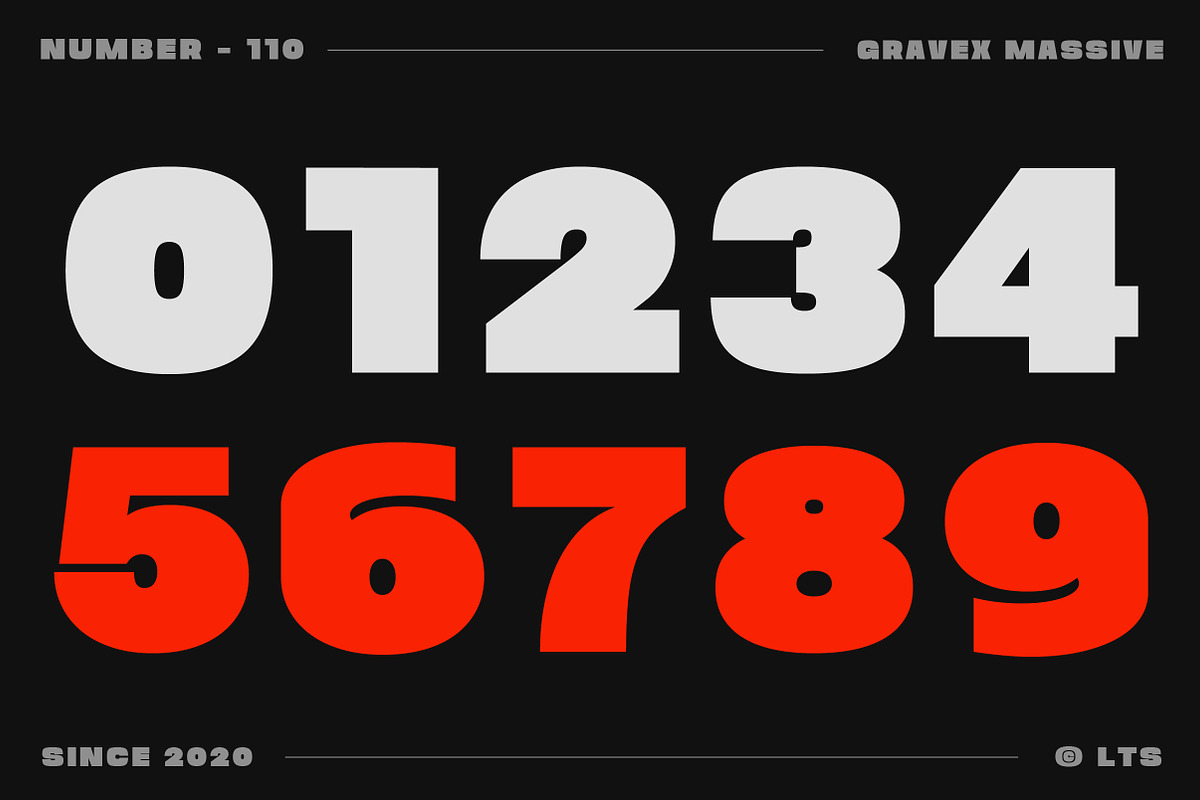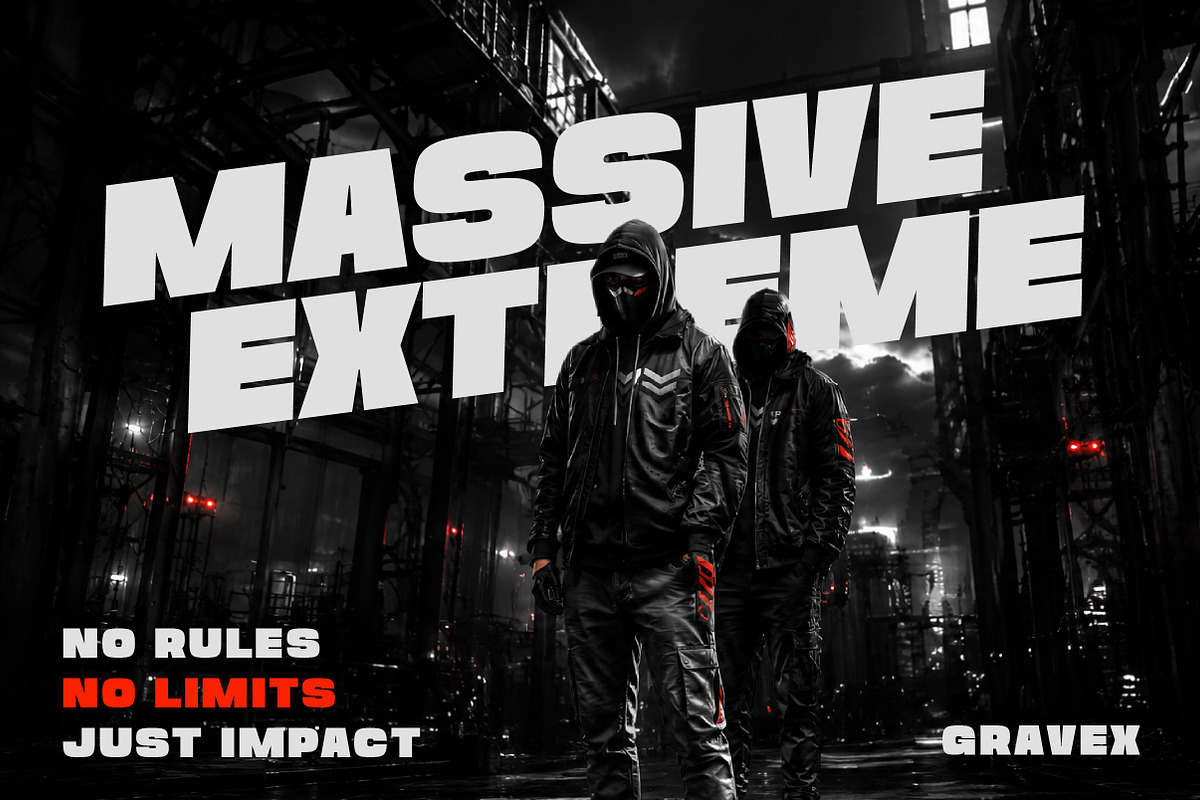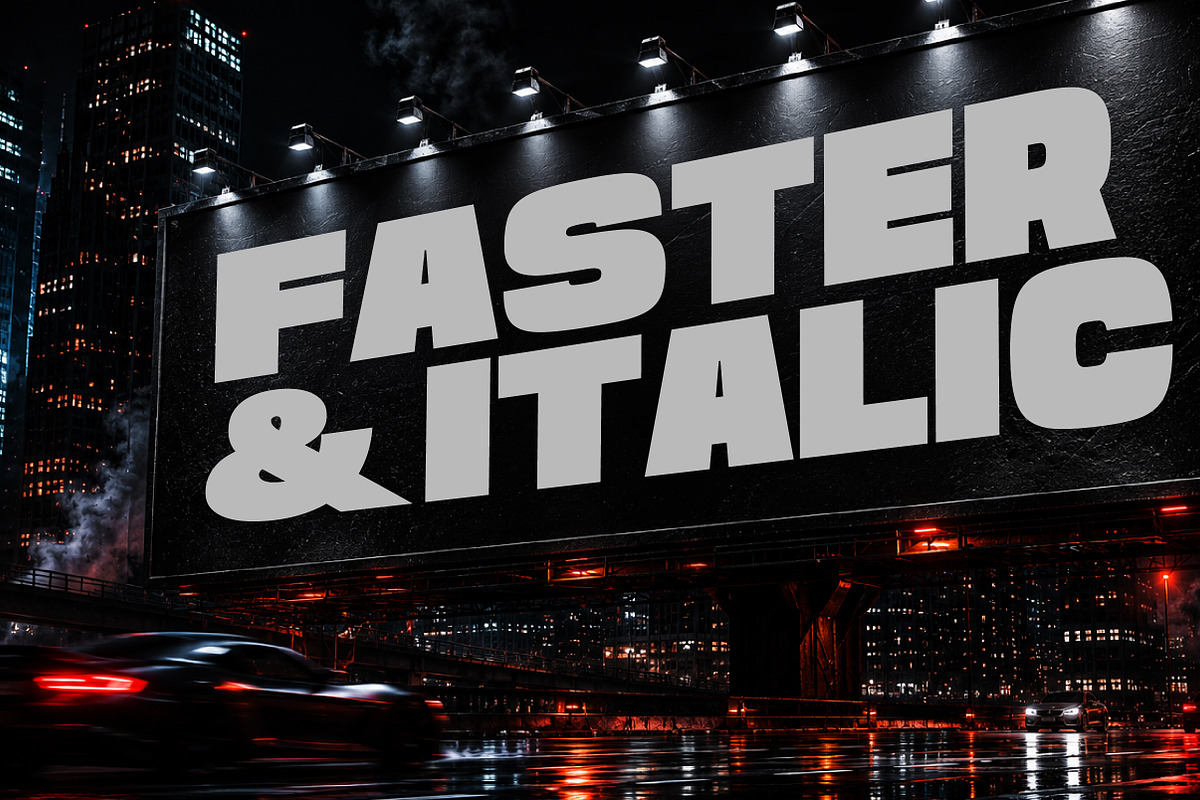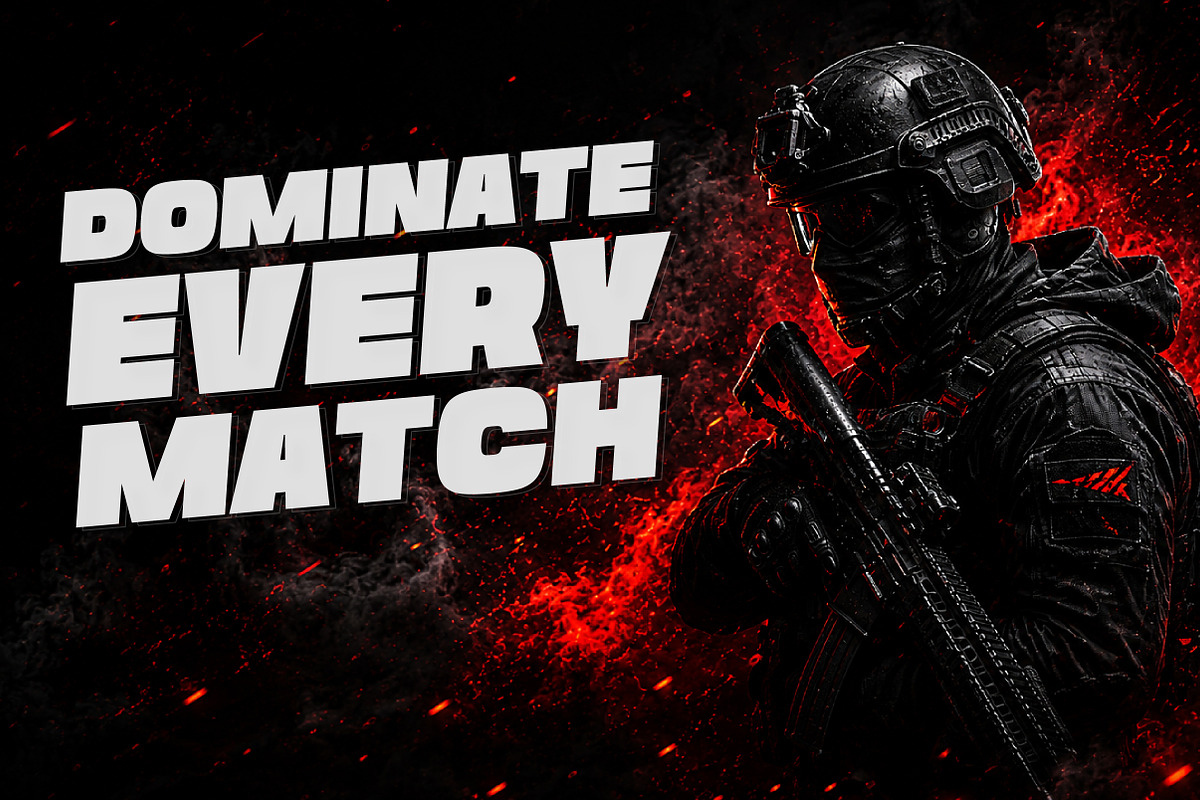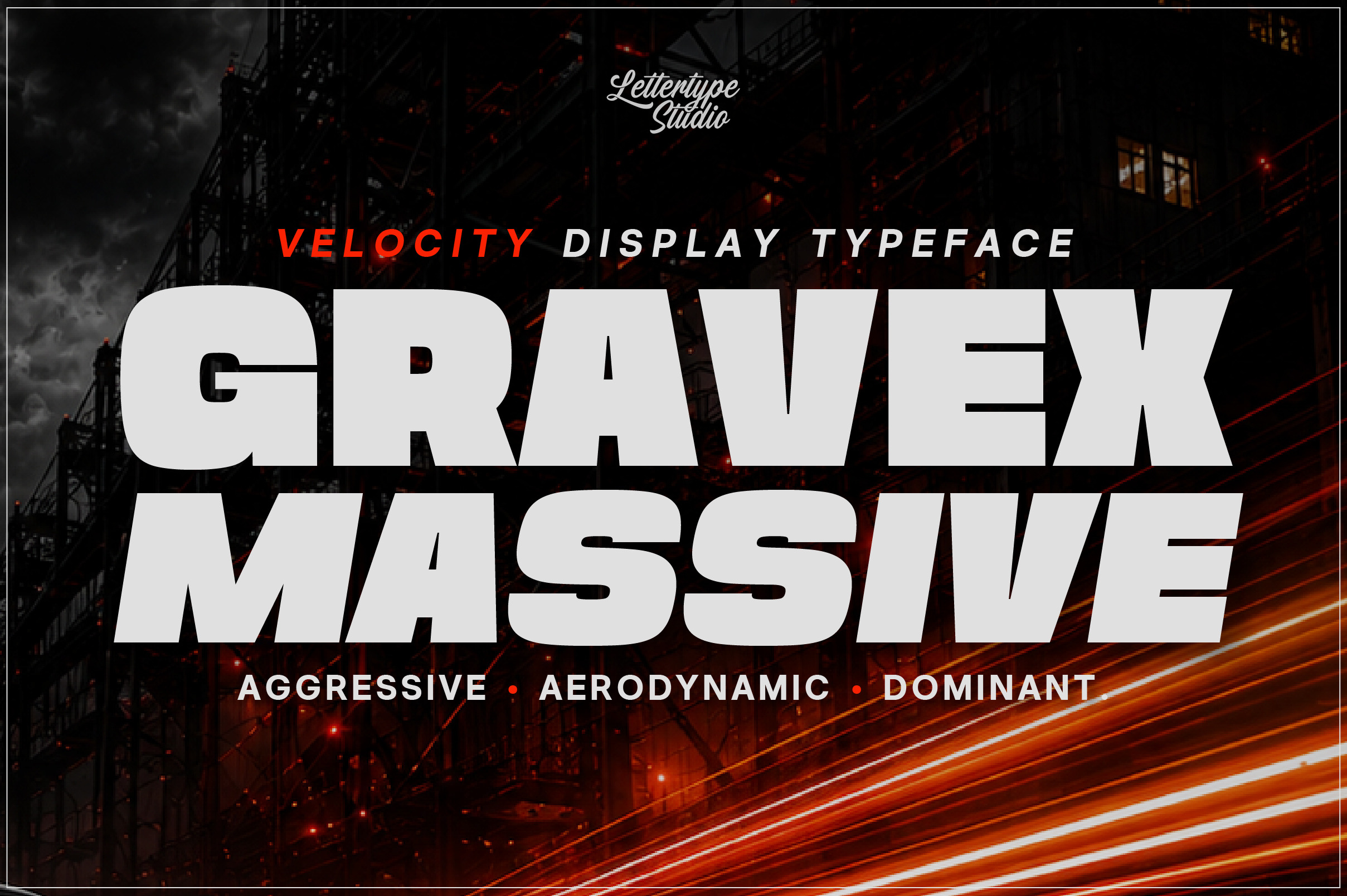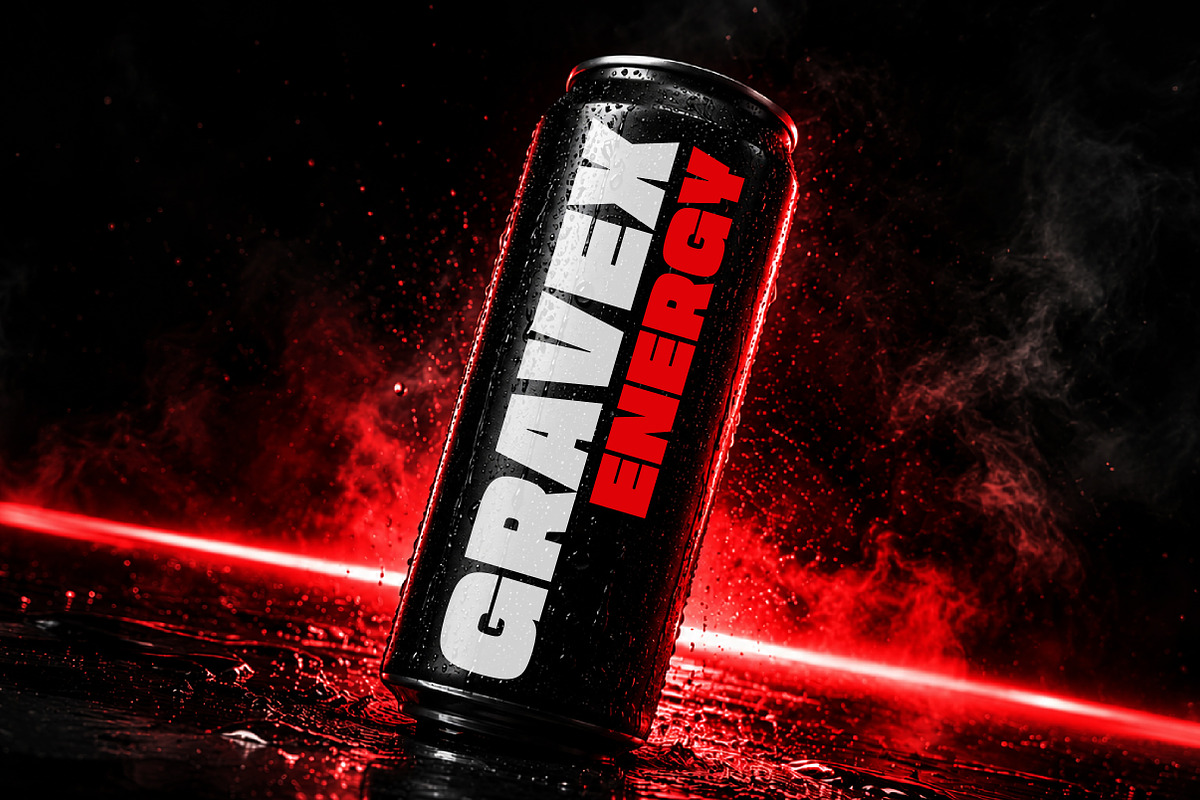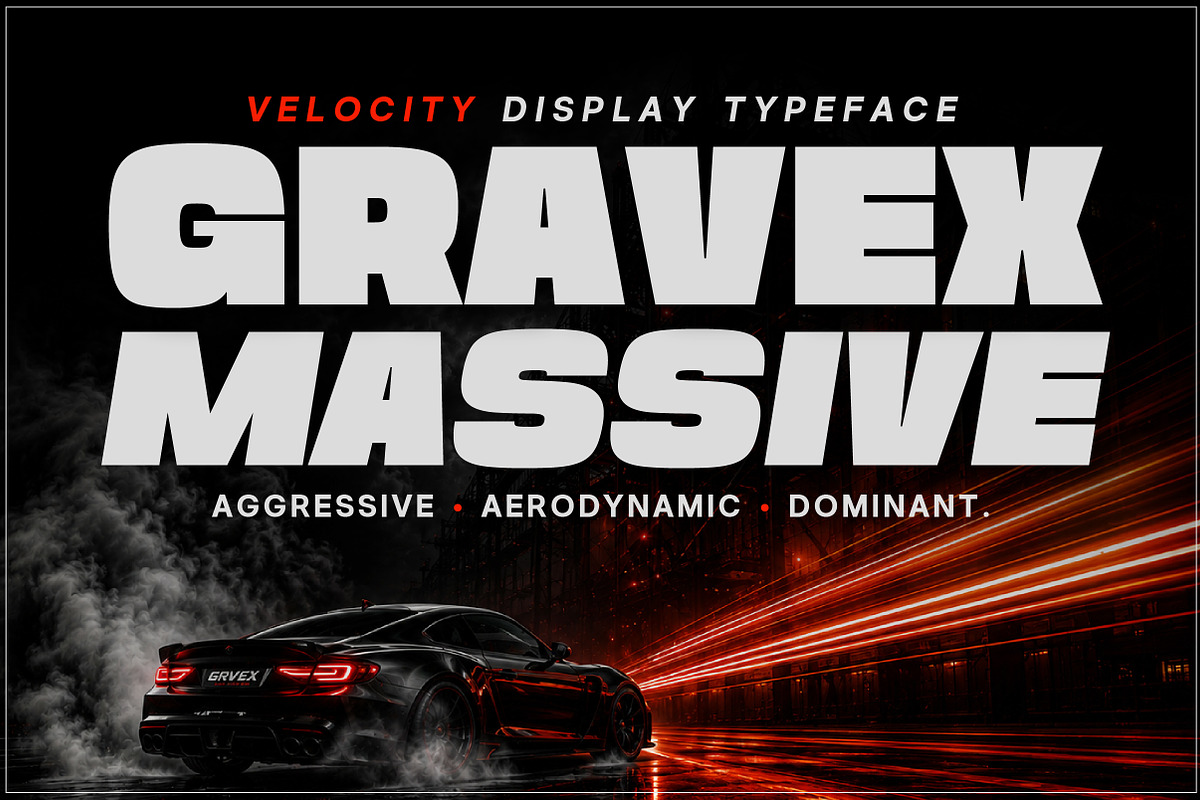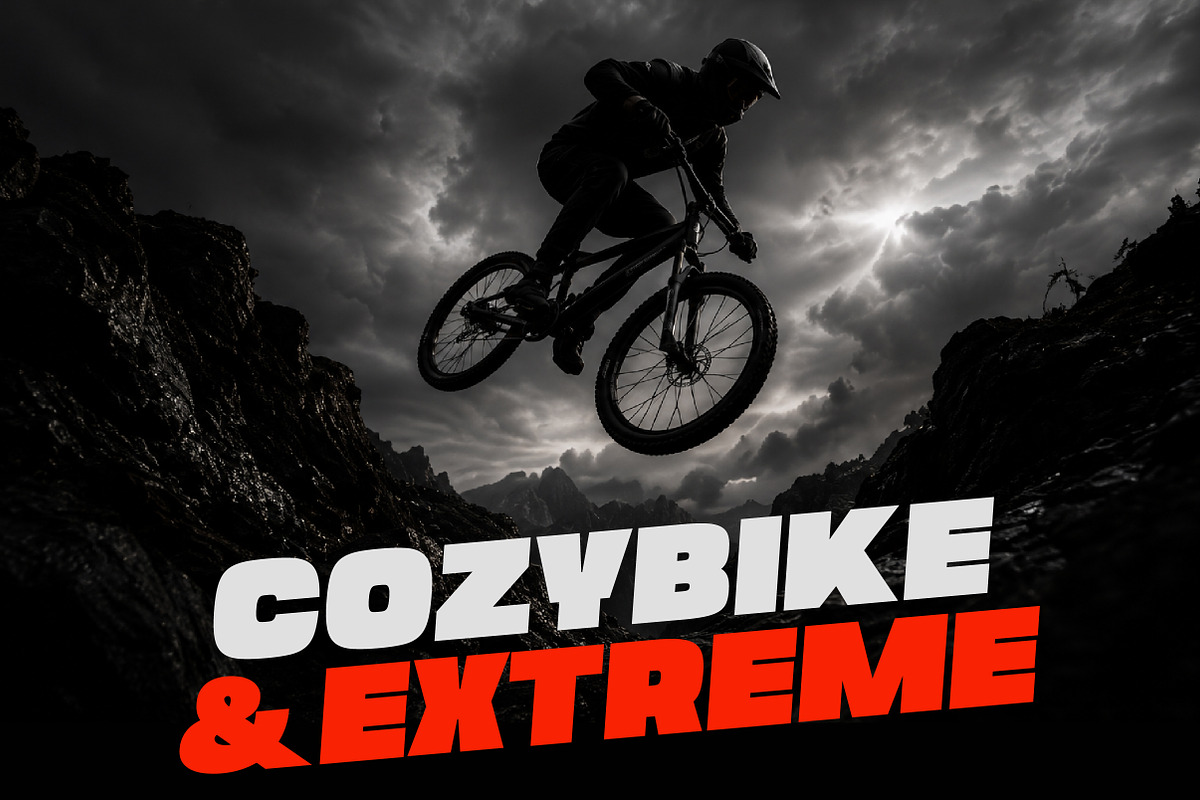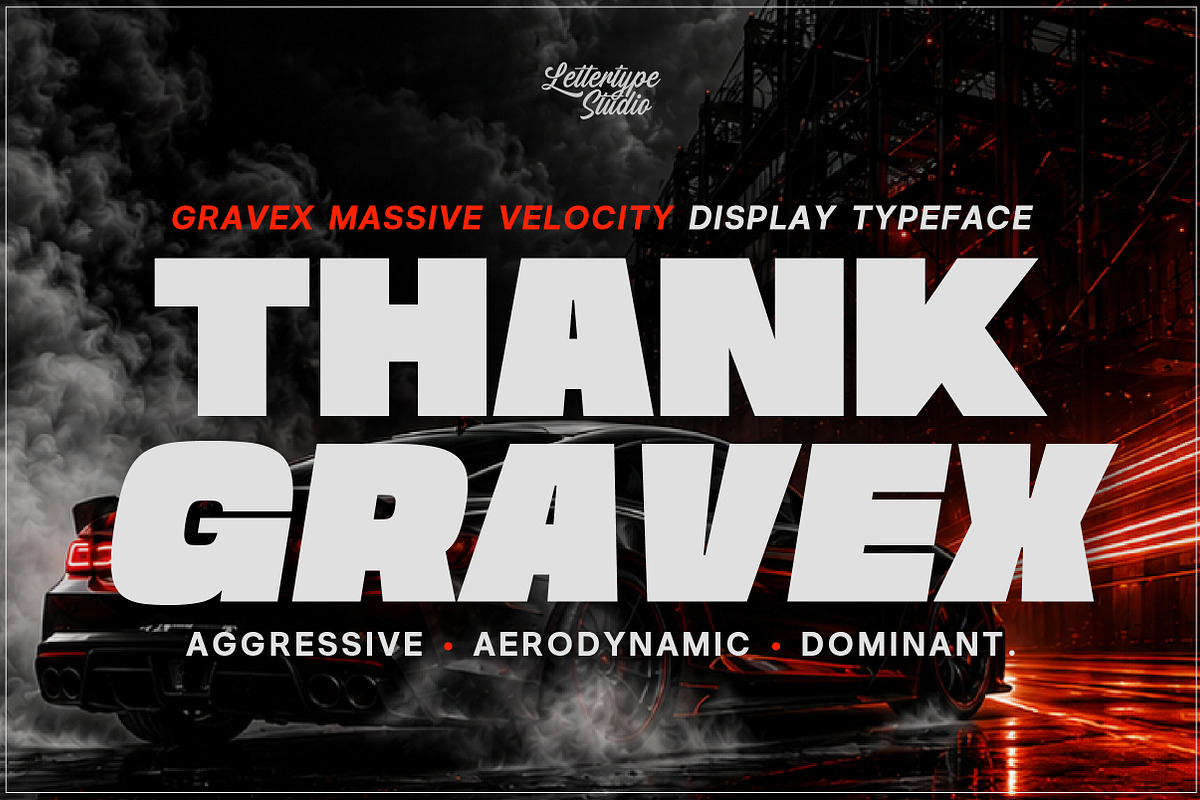
Gravex Massive Racing & Esports Font
Gravex Massive is a bold velocity-inspired display typeface built for speed, power, and aggressive visual impact. Featuring a heavy geometric structure, aerodynamic italic motion, and high-performance letterforms, this typeface is designed to dominate modern sports branding, racing visuals, esports graphics, automotive campaigns, and high-energy advertising. The strong uppercase presence and dynamic slant create a fast-moving typographic identity that instantly captures attention.
Perfect for motorsport posters, gaming titles, gym branding, energy drink packaging, racing liveries, YouTube thumbnails, apparel graphics, and futuristic streetwear visuals, Gravex Massive delivers a loud commercial aesthetic with strong readability and modern industrial character. Whether used in logos, headlines, merchandise, or digital campaigns, this typeface is built for creators who want typography that feels powerful, fast, and unstoppable.
Gravex Massive Features:
2 Styles
Upright & Italic
454 Glyphs Total
270+ Languages Support
Racing & Automotive Branding
E-sports & Gaming Graphics
Sportswear & Gym Campaigns
Energy Drink & FMCG Packaging
Urban Streetwear Posters